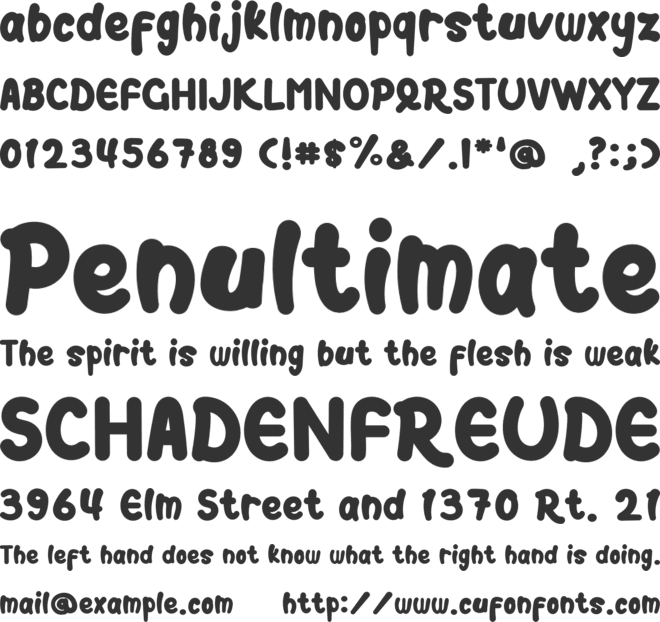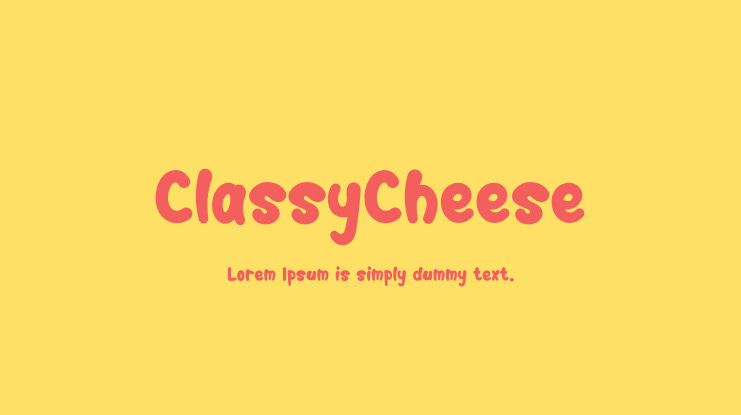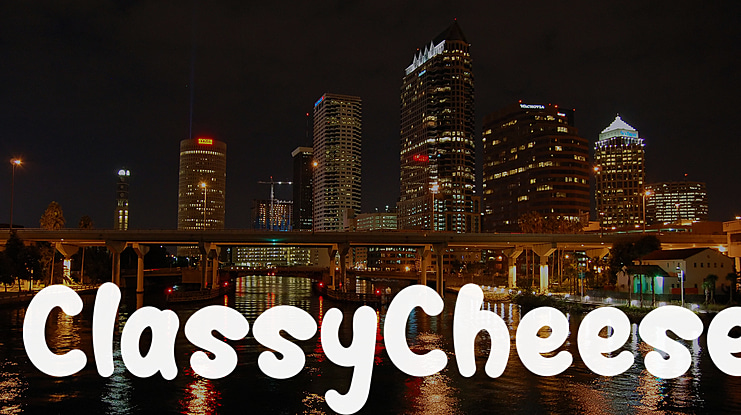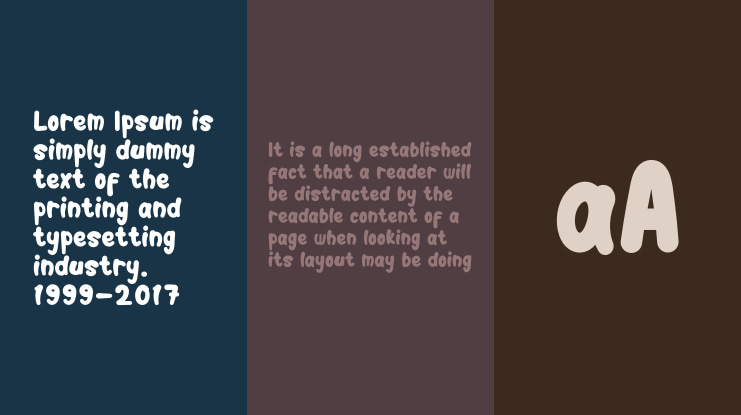
ClassyCheese Font
Classy Cheese is a fun and playful display font. Add it to your favorite foodie designs and watch it how it makes them stand out!https://www.creativefabrica.com/product/classy-cheese-2/ref/245145/